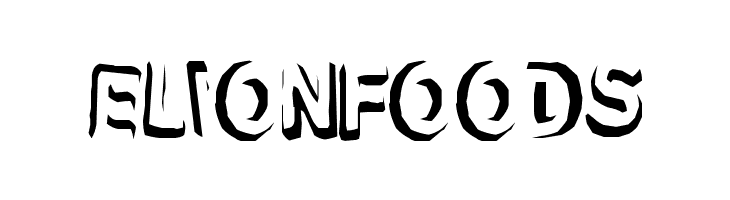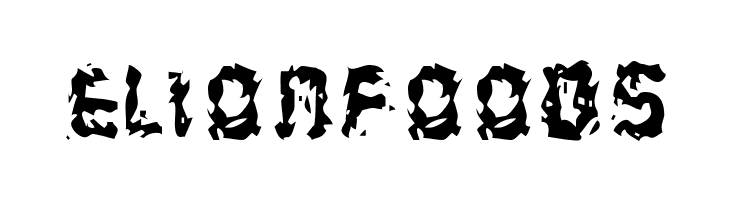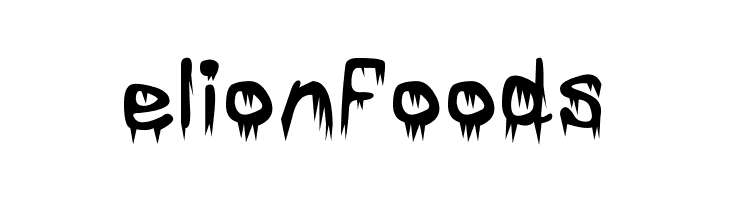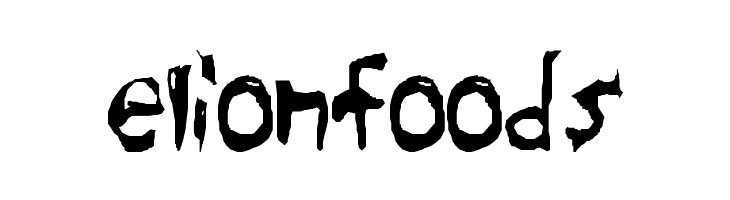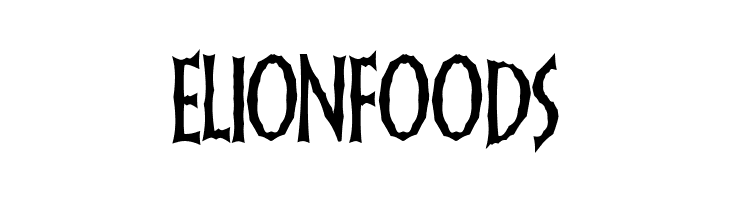
( Fonts by Jacob Fisher - www.pizzadude.dk )
A graffiti-inspired font with bold, jagged strokes and an urban, edgy style.
( Fonts by www.vicfieger.com )
A bold, distressed font with jagged edges and dynamic style.
( Fonts by Marty Bee - www.martybee.com )
A bold, jagged font with a classic horror theme and hand-drawn appearance.
( Fonts by Omega Font Labs )
A quirky, hand-drawn font with jagged edges and a playful style.